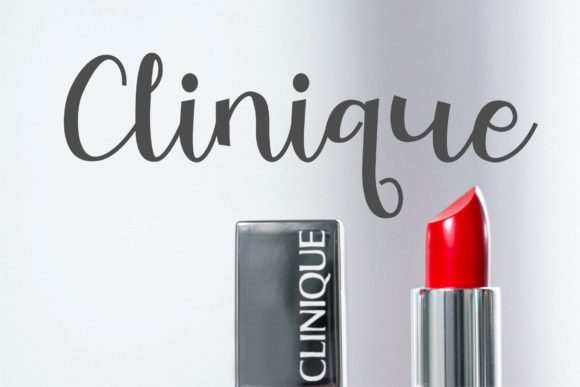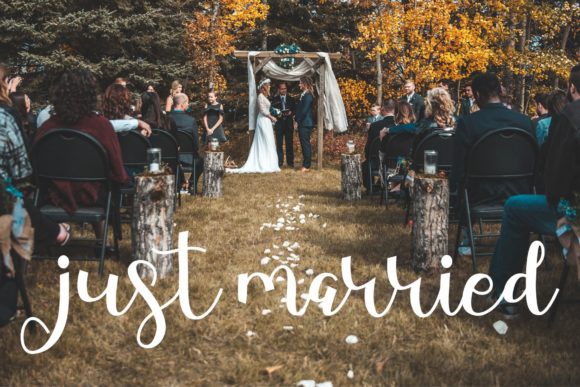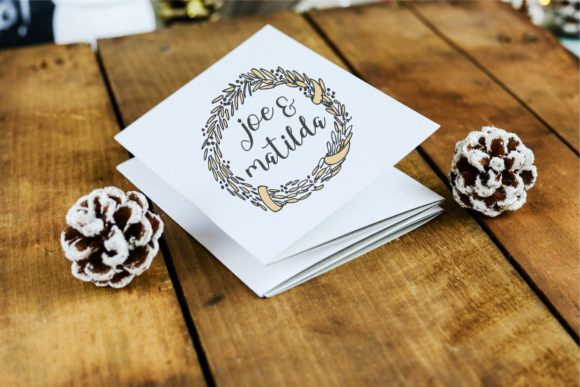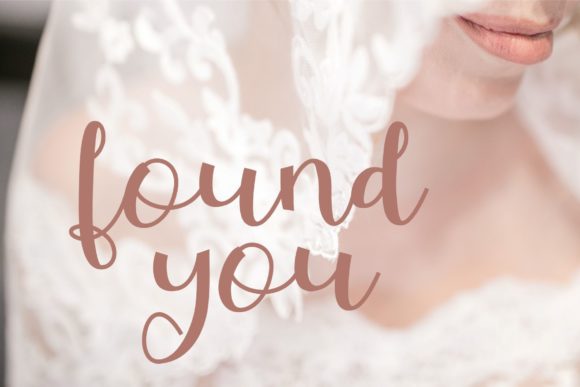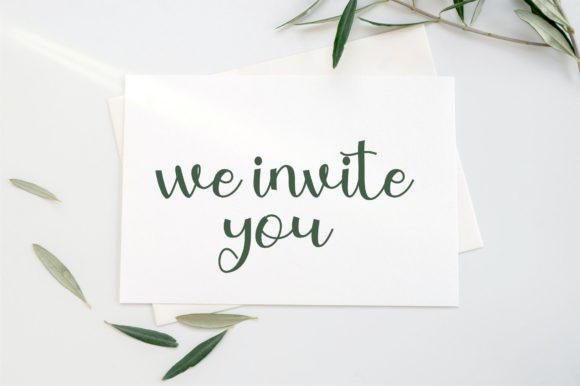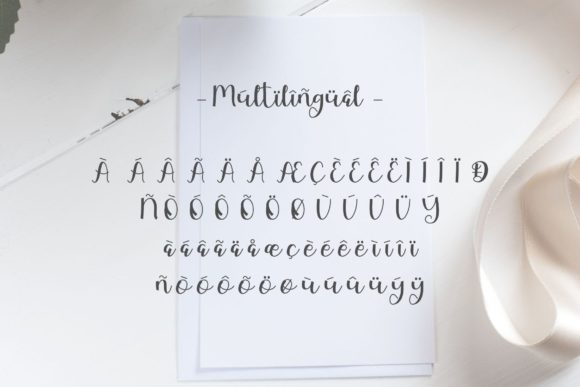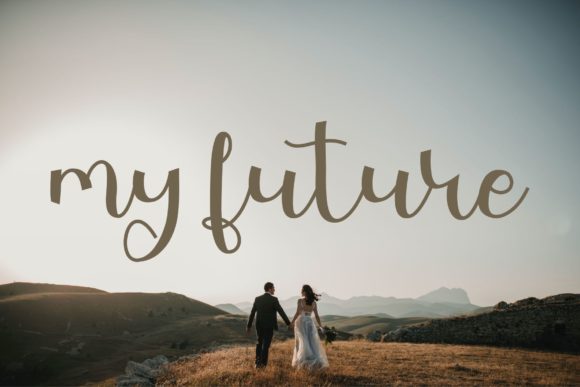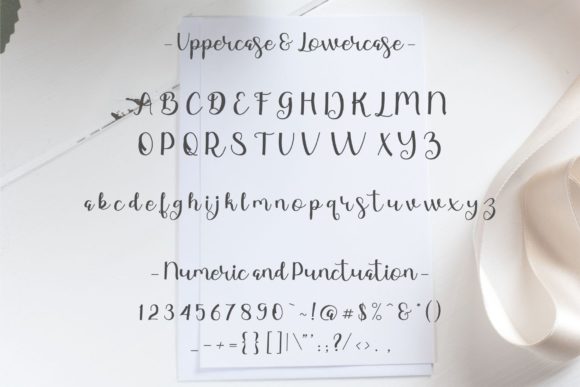
Rinsetta Font
About Rinsetta Font
Rinsetta is a beautiful and light handwritten font with a unique feel and a stunning impact. It will add a luxury spark to any design project that you wish to create!